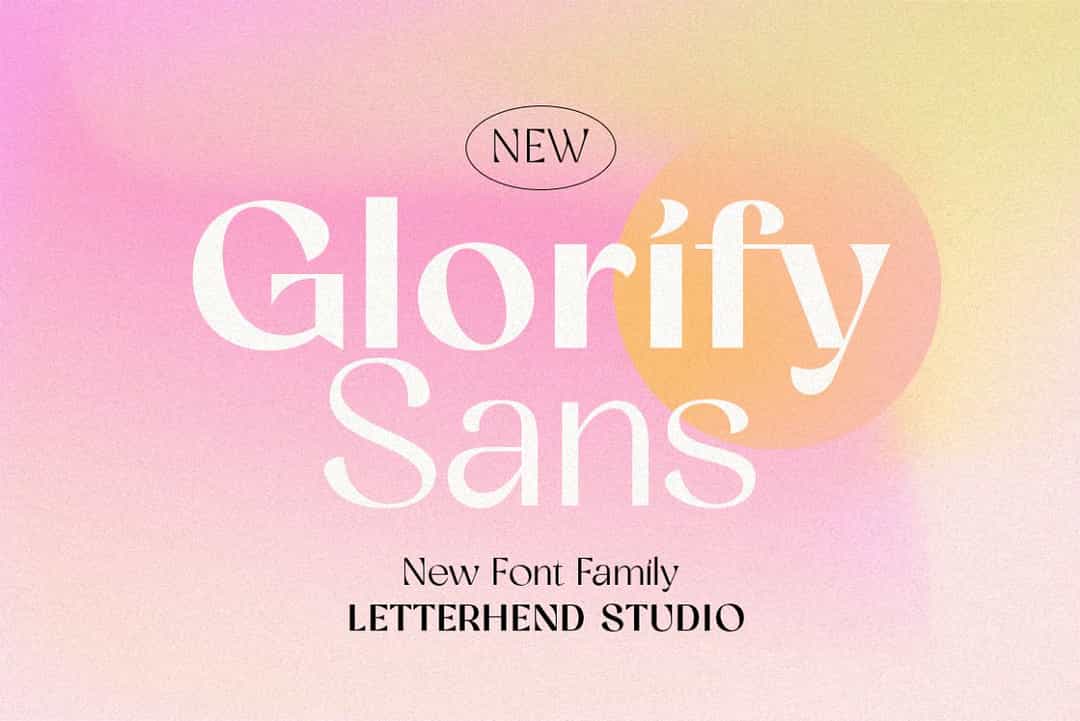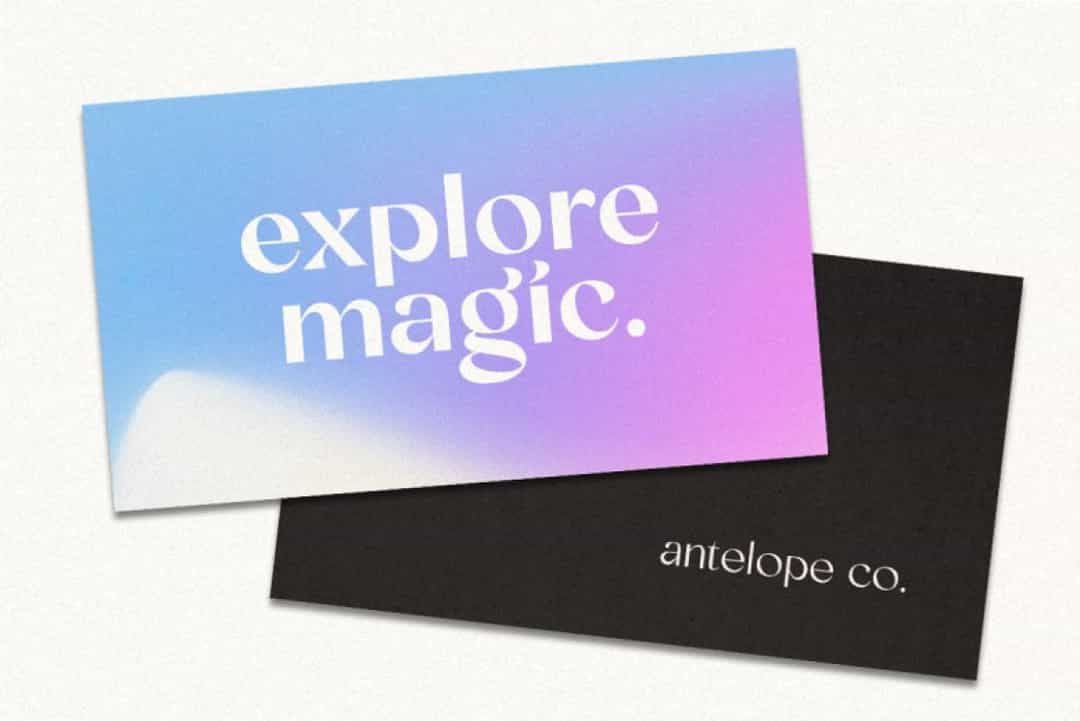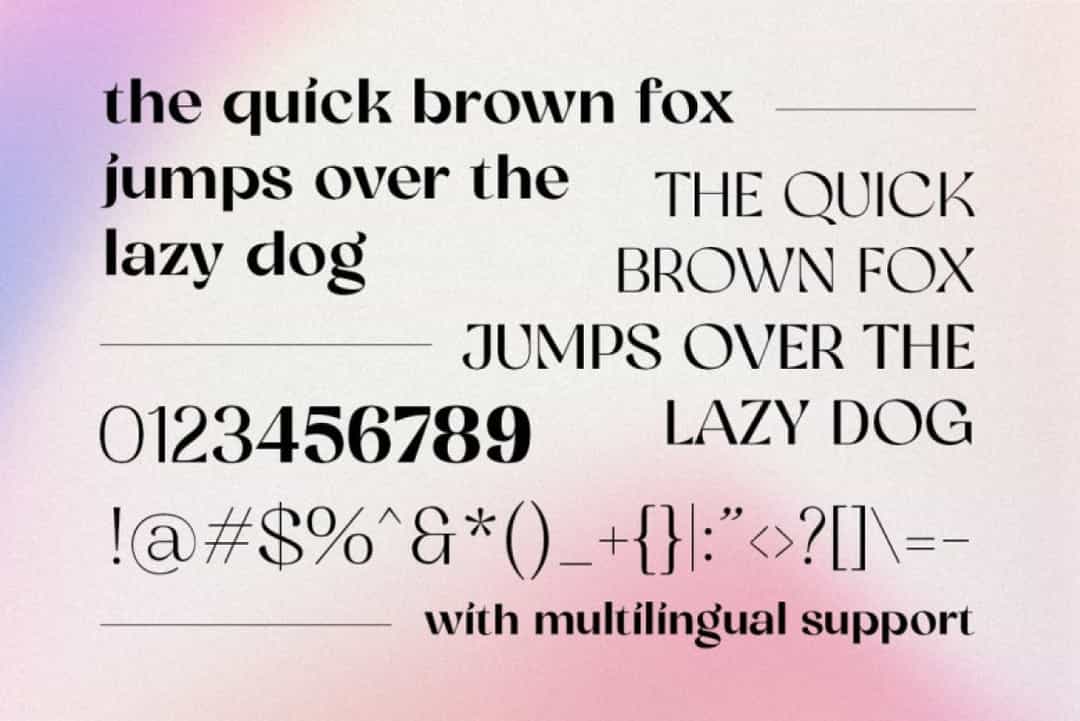
Discover Glorify Font, part of the Sans Serif collection—a versatile and unique font perfect for adding a personal touch to your projects. Download it for free and enjoy crafting designs with style, from invitations to social media posts. This font is available exclusively for personal use, giving you the freedom to create without limits. Unlock your creativity with Glorify Font today!
Glorify is an elegant sans serif font with eight weight options to select. Ideal for creating memorable headlines and taglines, its distinctive letter shape makes Glorify truly one-of-a-kind!